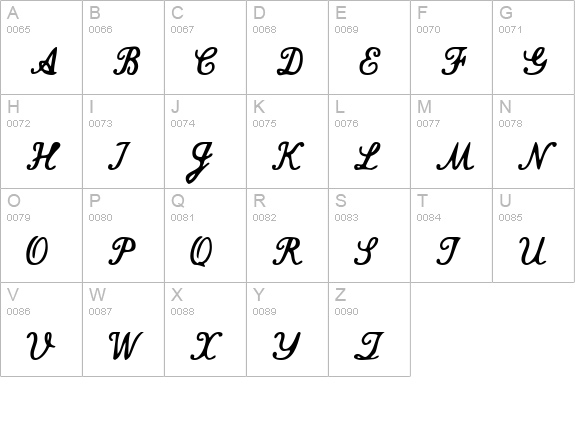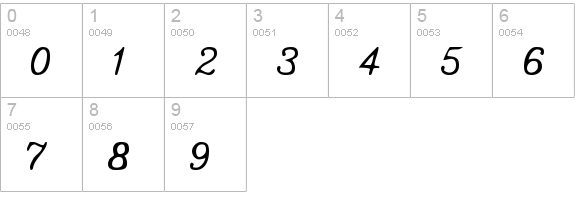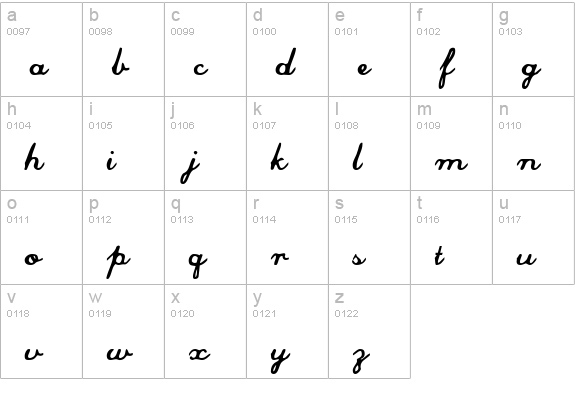
Commercial Script Bold Font Details
Commercial Script Bold is a strong, high-contrast variant in the Commercial typeface family \xE2\x80\x94 well suited to headlines, attention-grabbing titles, and strong calls-to-action.
Introducing Commercial Script Bold font, a versatile and elegant typeface designed to make your projects stand out with a touch of sophistication. The bold and dynamic strokes of this font exude confidence and professionalism, making it perfect for a wide range of commercial applications. Whether you're creating eye-catching advertisements, stylish branding materials, or striking headlines, Commercial Script Bold font is sure to make a lasting impression. What's even better is that this premium font is available for free download at FontsMarket.com. Yes, you read that right - you can get your hands on this high-quality font without spending a dime! So why wait? Elevate your designs with Commercial Script Bold font today and make a bold statement that captures attention and leaves a lasting impact.